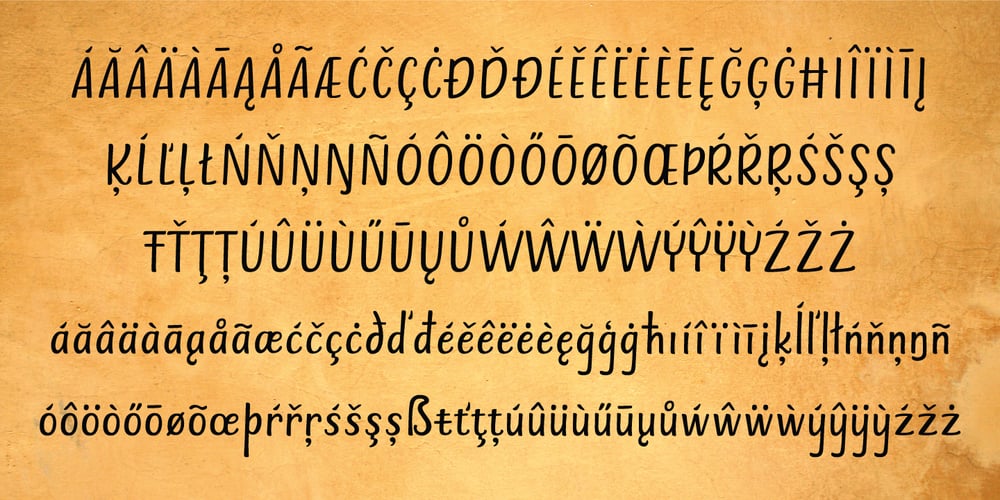
Cerulean Love Font Family was designed by Helena Öhman and published by Studio Indigo. Cerulean Love contains 1 styles and family package options. Cerulean Love is a soft and clean sans serif font with a strong handwritten feeling. The letter shapes are based on letters written with a brush pen. Its rounded shapes, soft terminals and easy-to read letters adds a friendly look to it which makes it useful for many different kinds of purposes such as products for children, menus, posters, logos etc. It comes with dicritic letters for all European languages. It has quite tall uppercase letters and quite long ascenders and descenders.